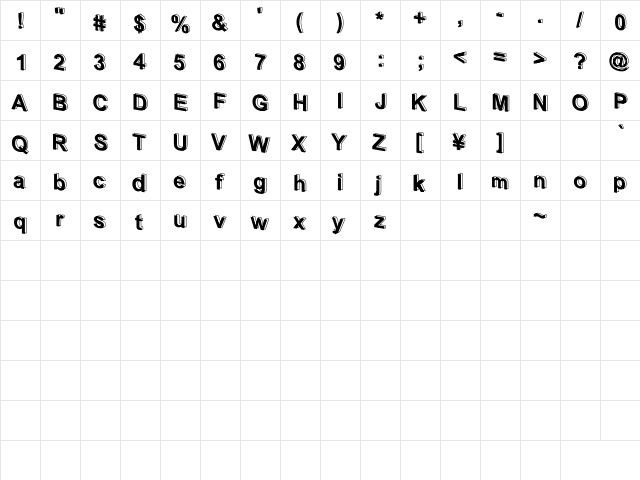
D3 Parallelism Regular Font Preview
D3 Parallelism Regular
Design Context for D3 Parallelism Typeface
D3 Parallelism is a composed and adaptable typeface that performs quietly and consistently across a wide range of design contexts.